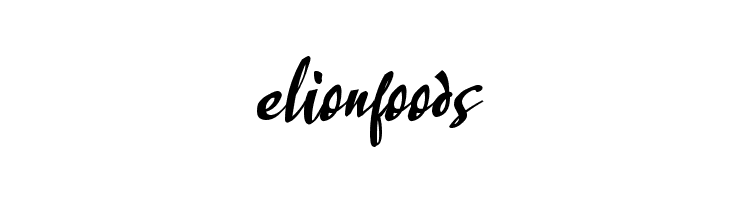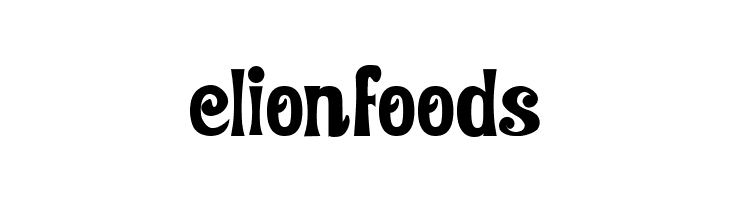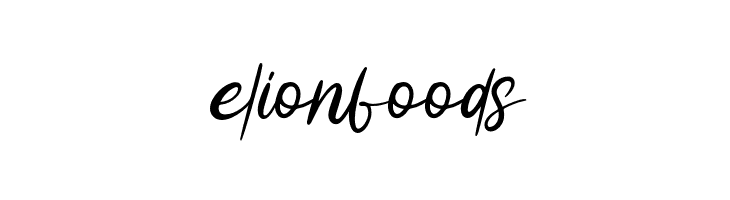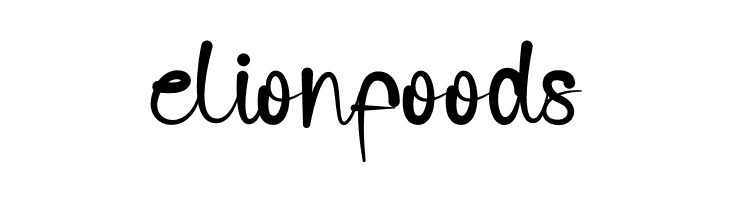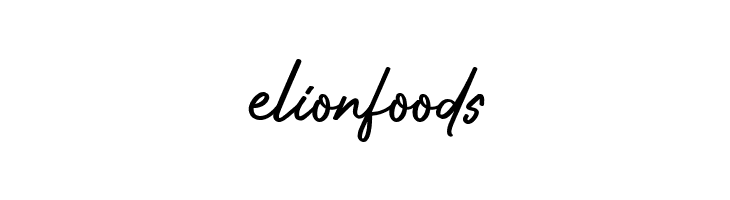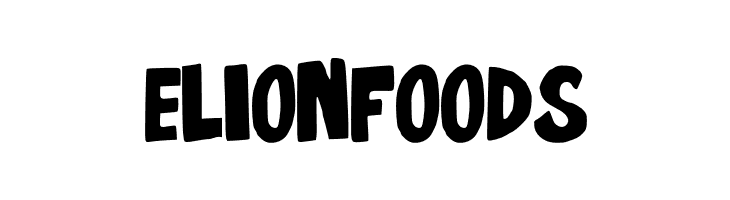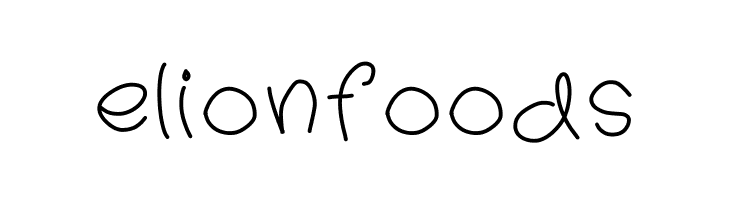
A playful, handwritten script font with dynamic, cursive strokes.
A playful, handwritten script font with dynamic, slanted characters.
A playful, bold font with rounded, bubbly characters ideal for fun, informal projects.
A bold, outlined font with a playful and cartoonish style.
A flowing, cursive font with a handwritten style and elegant, connected characters.
A graceful script font with flowing, interconnected characters and a calligraphic style.
A bold, rounded font with a playful and friendly style.
A playful and whimsical font with bold, rounded shapes and a hand-drawn feel.
A playful, bold font with rounded, bubbly characters and a whimsical style.
A playful and elegant script font with a handwritten feel.
A playful and elegant script font with a handwritten style.
A playful and elegant script font with a handwritten appearance.
A playful, rounded font with bold, consistent strokes and a friendly appearance.
A playful, rounded font with bold, consistent strokes and smooth curves.
Playful handwritten script with bold, rounded strokes and whimsical curves.
A playful, bold, and handwritten-style font with rounded edges.
A whimsical handwritten font with a casual and fluid style.
A playful, bold font with rounded, bubbly characters and a whimsical style.
A playful, bold, and slightly italicized font with rounded edges.
A playful, handwritten font with smooth, rounded edges and consistent medium weight.
An elegant, flowing script font with a natural handwriting style.
A playful, handwritten font with a casual and dynamic style.
A bold, handwritten font with smooth, rounded edges and a playful style.
A playful, hand-drawn font with a bold and whimsical style.
A playful, bold font with smooth, rounded characters and a whimsical style.
A bold, expressive script font with flowing, cursive letterforms.
A casual, handwritten font with a smooth, flowing style.
A flowing, cursive handwritten font with smooth, continuous strokes.
A playful, casual handwritten font with smooth, flowing curves.
A playful, hand-drawn font with a whimsical, outlined style.
( Fonts by FallenGraphic Studio - Vava Aryanto - Personal-use only. For commercial use please contact owner. )
A bold, modern sans-serif font with clean lines and geometric structure.
A playful, handwritten font with a casual and friendly appearance.
A playful, hand-drawn font with rounded, bold characters.
An elegant script font with decorative swirls and artistic flair.
A playful, hand-drawn font with a casual and friendly vibe.